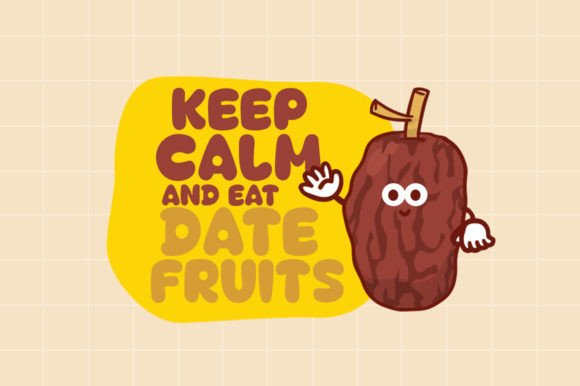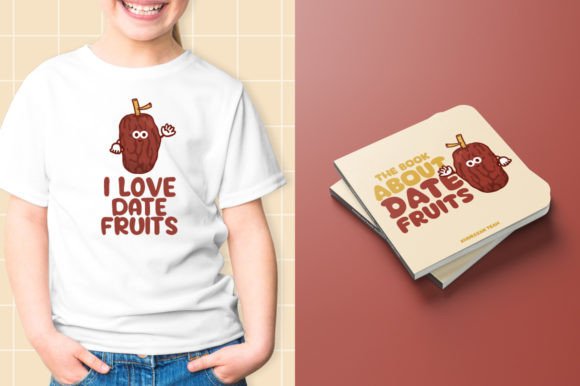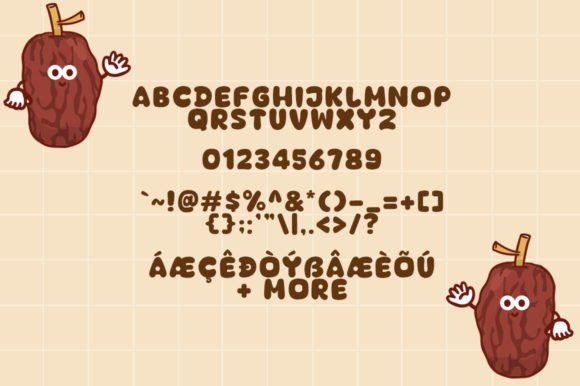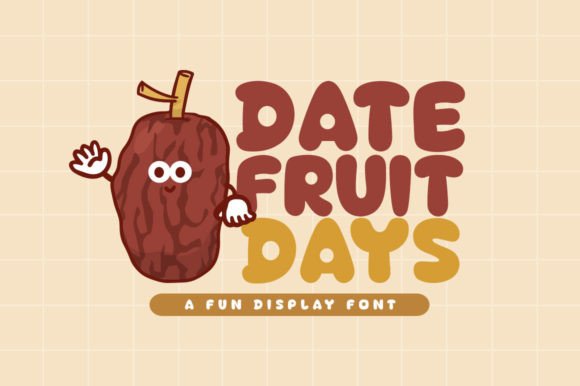
Introducing Date Fruit Days Font: Add a Playful Touch to Your Designs
Are you looking for a font that can add a fun and playful touch to your designs? Look no further than Date Fruit Days Font! This cool display font is perfect for cartoon-related designs, children’s games, and any creation that requires a youthful and energetic vibe. In this article, we’ll dive into the features and benefits of Date Fruit Days Font, and explore how you can use it to take your designs to the next level.
What is Date Fruit Days Font?
Date Fruit Days Font is a unique and creative display font that is designed to bring a smile to your audience’s face. With its bold and playful letters, this font is sure to grab attention and make your designs stand out from the crowd. Whether you’re a designer, crafty DIY enthusiast, or simply someone who loves to create, Date Fruit Days Font is the perfect choice for your next project.
Key Features of Date Fruit Days Font
- Playful and Fun Design: Date Fruit Days Font features bold and playful letters that are sure to add a fun touch to your designs.
- Perfect for Cartoon-Related Designs: The font’s cartoon-inspired design makes it perfect for cartoon-related designs, children’s games, and animations.
- Versatile and Easy to Use: Date Fruit Days Font is easy to use and can be applied to a wide range of designs, from posters and flyers to digital graphics and crafts.
- High-Quality Design: The font is designed with high-quality and clear lettering, making it perfect for both print and digital designs.
Benefits of Using Date Fruit Days Font
So, why choose Date Fruit Days Font for your designs? Here are just a few benefits of using this amazing font:
- Adds a Playful Touch: Date Fruit Days Font adds a playful and fun touch to your designs, making them more engaging and appealing to your audience.
- Perfect for Kids’ Designs: The font’s playful design makes it perfect for kids’ designs, such as children’s games, educational materials, and kids’ party decorations.
- Increases Creativity: With Date Fruit Days Font, you can let your creativity shine and create unique and imaginative designs that reflect your personality.
- Easy to Read: The font’s clear and bold design makes it easy to read, even at smaller sizes.
How to Use Date Fruit Days Font
- Pair it with Other Fonts: Date Fruit Days Font pairs well with other fonts, such as sans-serif fonts, to create a unique and interesting design.
- Experiment with Colors: The font looks great in bold and bright colors, but feel free to experiment with different colors to match your design’s theme.
- Use it for Headings: Date Fruit Days Font is perfect for headings and titles, adding a playful touch to your design.
In conclusion, Date Fruit Days Font is a fun and cool display font that is perfect for adding a playful touch to your designs. With its bold and playful letters, this font is sure to grab attention and make your designs stand out from the crowd. Whether you’re a designer, crafty DIY enthusiast, or simply someone who loves to create, Date Fruit Days Font is the perfect choice for your next project. So why wait? Download Date Fruit Days Font today and start creating fun and engaging designs!